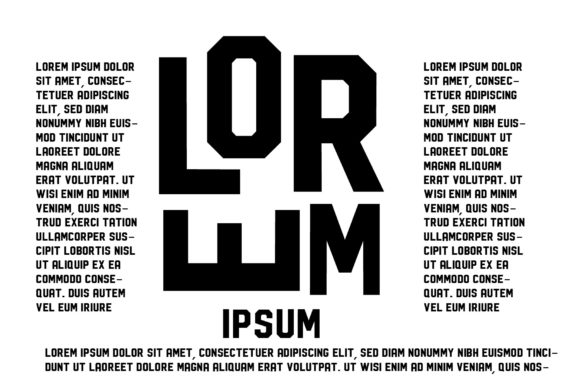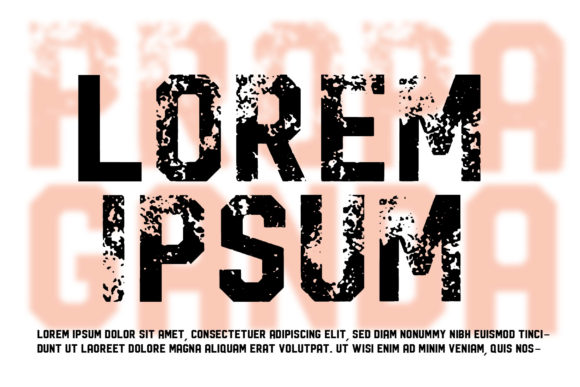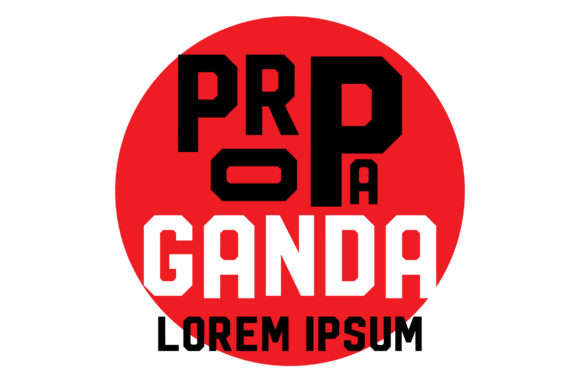
Introduction to Propaganda Font
Have you ever been in the middle of a creative project, desperately searching for the perfect font to bring your idea to life? You browse through numerous options, but none seem to capture the essence you’re looking for. That’s where the Propaganda Font comes in – a simple yet elegant display font that can elevate your design to the next level.
With its clean and beautiful arrangement of letters, the Propaganda Font is an excellent addition to any design project. Whether you’re working on a formal or non-formal design, this font is sure to make a statement. Plus, it’s completely free to download, making it an accessible design resource for creatives of all levels.
Key Features of Propaganda Font
- Unique, bold, and striking design, perfect for creative projects and design resources.
- Transparent background, allowing for easy customization and integration with various design elements.
- Designed to be highly legible, making it suitable for a wide range of applications, from posters to brochures.
- Perfect for designers looking for a distinctive and attention-grabbing font to elevate their design projects.
Honest Review: Propaganda Font
I recently came across the Propaganda Font, and I must say, it’s been a valuable addition to my design resource library. The font offers a unique, vintage aesthetic that’s perfect for creative projects that require a sense of nostalgia or timelessness.
- ✨ High quality typography with a clear, readable design
- ✨ A wide range of languages supported, making it a versatile design option
- ⚠️ The font doesn’t offer a transparent background option, which can limit its use in certain design scenarios
- ⚠️ The font is a bit heavy, so it may not be suitable for all types of creative projects
Overall, I’m impressed with the Propaganda Font. It’s a high-quality design resource that’s perfect for designers looking to add a vintage touch to their work. While it has some limitations, it’s definitely worth checking out – especially since it’s available for free download.
The Propaganda Font is a high-quality, unique design resource that can add a touch of sophistication to any creative project. With a transparent background, this font is versatile and can be used in a variety of applications.
Tips for Getting the Most Out of Propaganda Font
To get the most out of the Propaganda Font, experiment with different font sizes, colors, and combinations to find the perfect look for your project.
The Propaganda Font is perfect for use in brochures, flyers, posters, and other marketing materials. It’s also great for creating unique headings and titles in presentations and documents.
Alternatives to Propaganda Font
Akzidenz-Grotesk
Akzidenz-Grotesk is a sans-serif font that was first introduced in the 19th century. It is a high-quality design resource that is suitable for a variety of creative projects, including graphic design, advertising, and editorial content. Akzidenz-Grotesk is a great alternative to Propaganda Font when you need a clean and modern look without the bold, distressed feel of Propaganda.
Compared to Propaganda Font, Akzidenz-Grotesk is more subtle and understated, making it a great choice for projects where you want to convey a sense of professionalism and sophistication. Akzidenz-Grotesk is available for free download from various online design resources, including Google Fonts.
News Gothic
News Gothic is a classic sans-serif font that was first introduced in the 1920s. It is a high-quality design resource that is suitable for a variety of creative projects, including graphic design, advertising, and editorial content. News Gothic is a great alternative to Propaganda Font when you need a font with a similar vintage feel, but without the bold, distressed look of Propaganda.
Compared to Propaganda Font, News Gothic is more elegant and refined, making it a great choice for projects where you want to convey a sense of sophistication and style. News Gothic is available for free download from various online design resources, including 1001 Free Fonts.